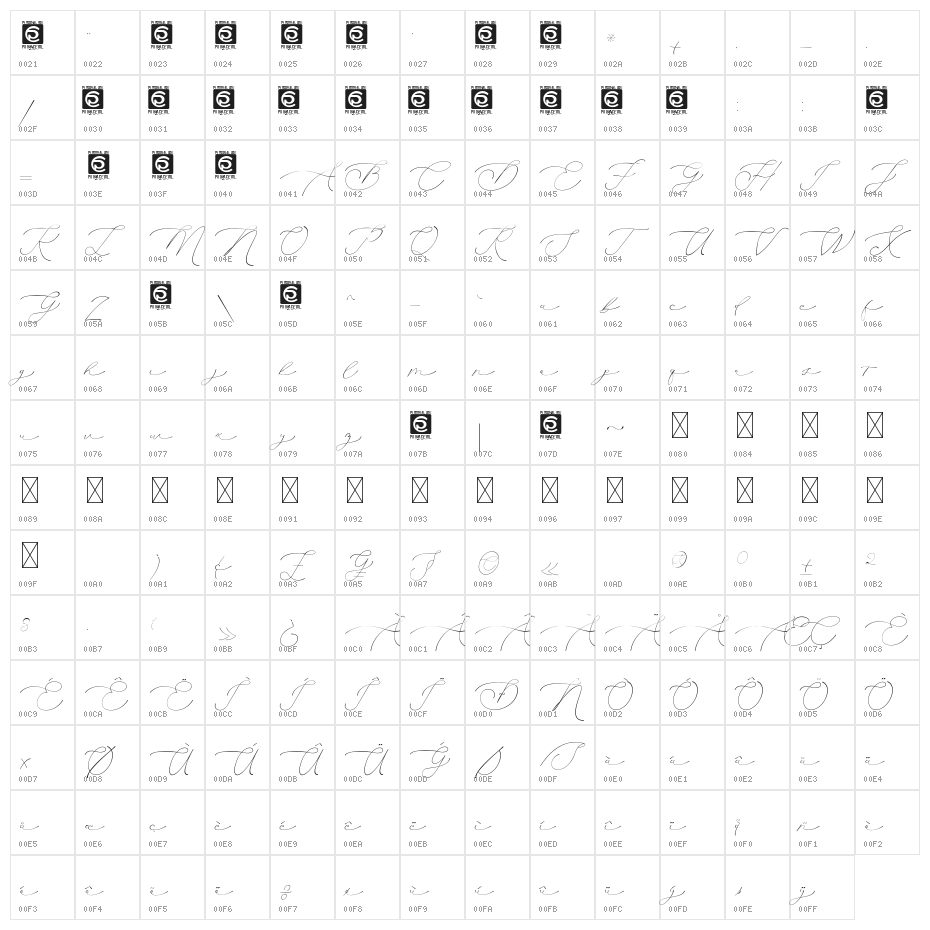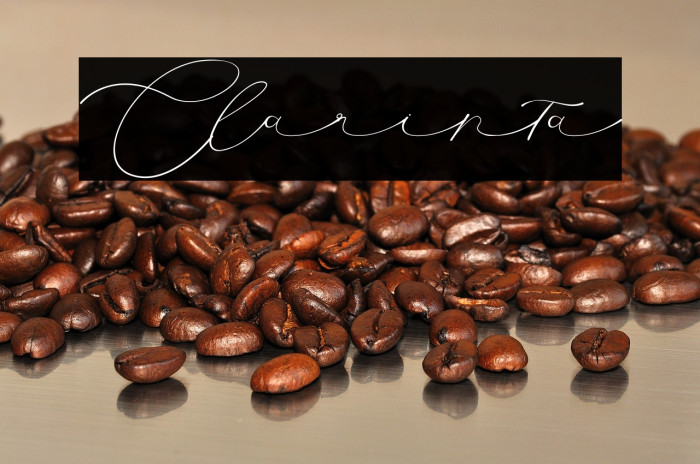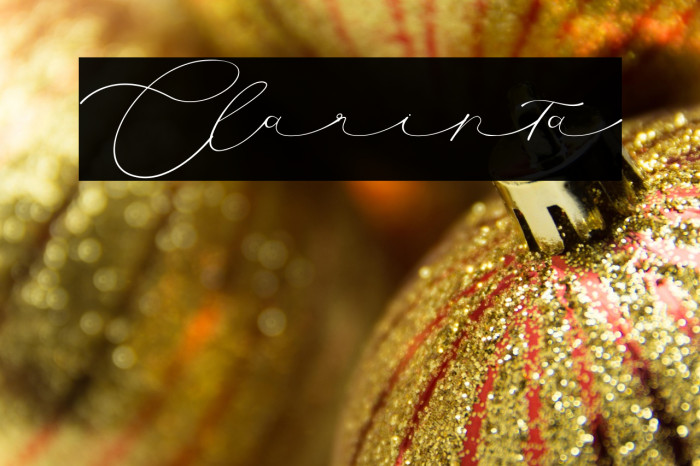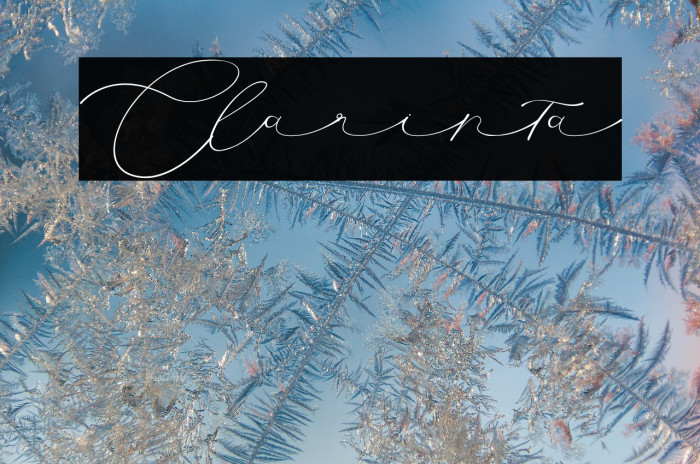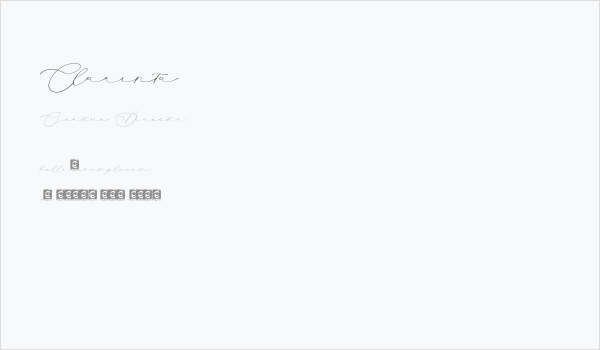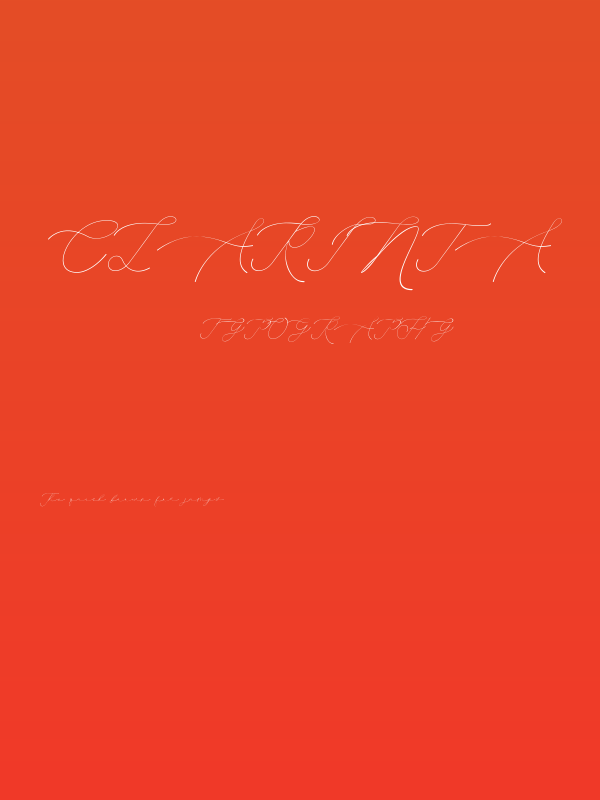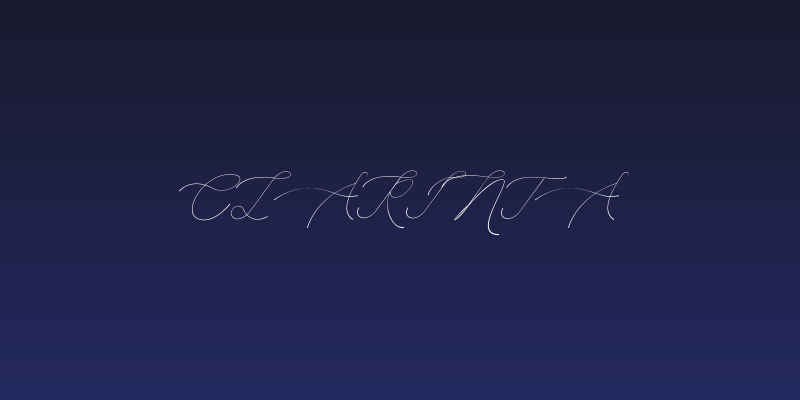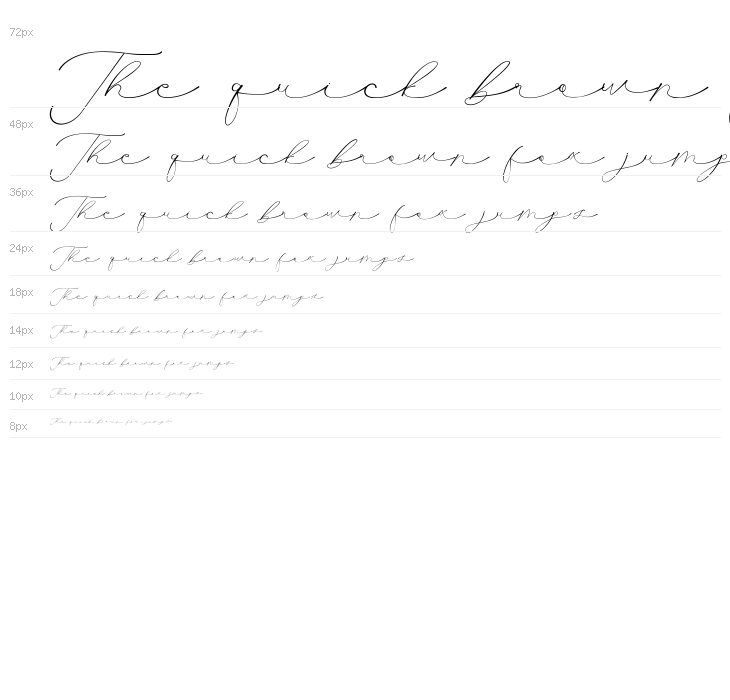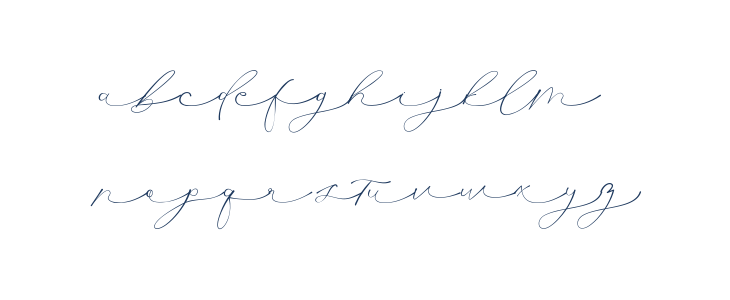
Clarinta Font
Clarinta Description
This elegant script font features a delicate and flowing design, characterized by its thin, graceful strokes and subtle curves. The uppercase letters are ornate and interconnected, creating a sense of fluidity and movement. The lowercase letters maintain a consistent style, with elongated ascenders and descenders that enhance the font's sophisticated appearance. The numerals and special characters are crafted with the same attention to detail, ensuring a cohesive look across all glyphs. This font exudes a sense of refinement and is suitable for projects that require a touch of elegance.
| Overall Style | Elegant |
| Use Case | Logos, Invitations, Branding |
| Proposed Projects | Ideal for wedding invitations, elegant branding, personal stationery, and upscale packaging. |